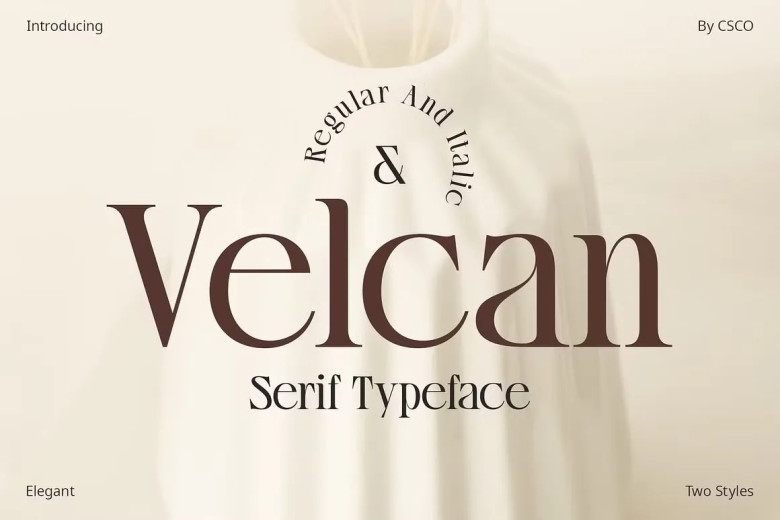
Velcan Font
Velcan is an elegant serif typeface that will captivate anyone who sees it with its graceful grace and lively rhythm of serifs and curves, creating a stunning look for any design project. Velcan stands out amongst other fonts because of its bold contrast; each letter is like an artful work created to produce timeless designs.
Velcan Displays Its Versatility Velcan is an example of breaking free from traditional design practices and showing its versatility. On screen or print, its high contrast image ensures it will stand out and can be seen easily – ideal for many designs.
Make Velcan Part of Your Design Harness the Power of Velcan to Complement Your Designs Take advantage of Velcan to add visual impact and sophistication to any of your designs, from editorial to branding – by taking advantage of its striking serif font that conveys elegance with timeless fashion sense.
Velcan is the epitome of class. Combining elegance with high contrast to form an arresting visual language that transcends style boundaries. Velcan can act as the silent narrator for your exquisite designs.